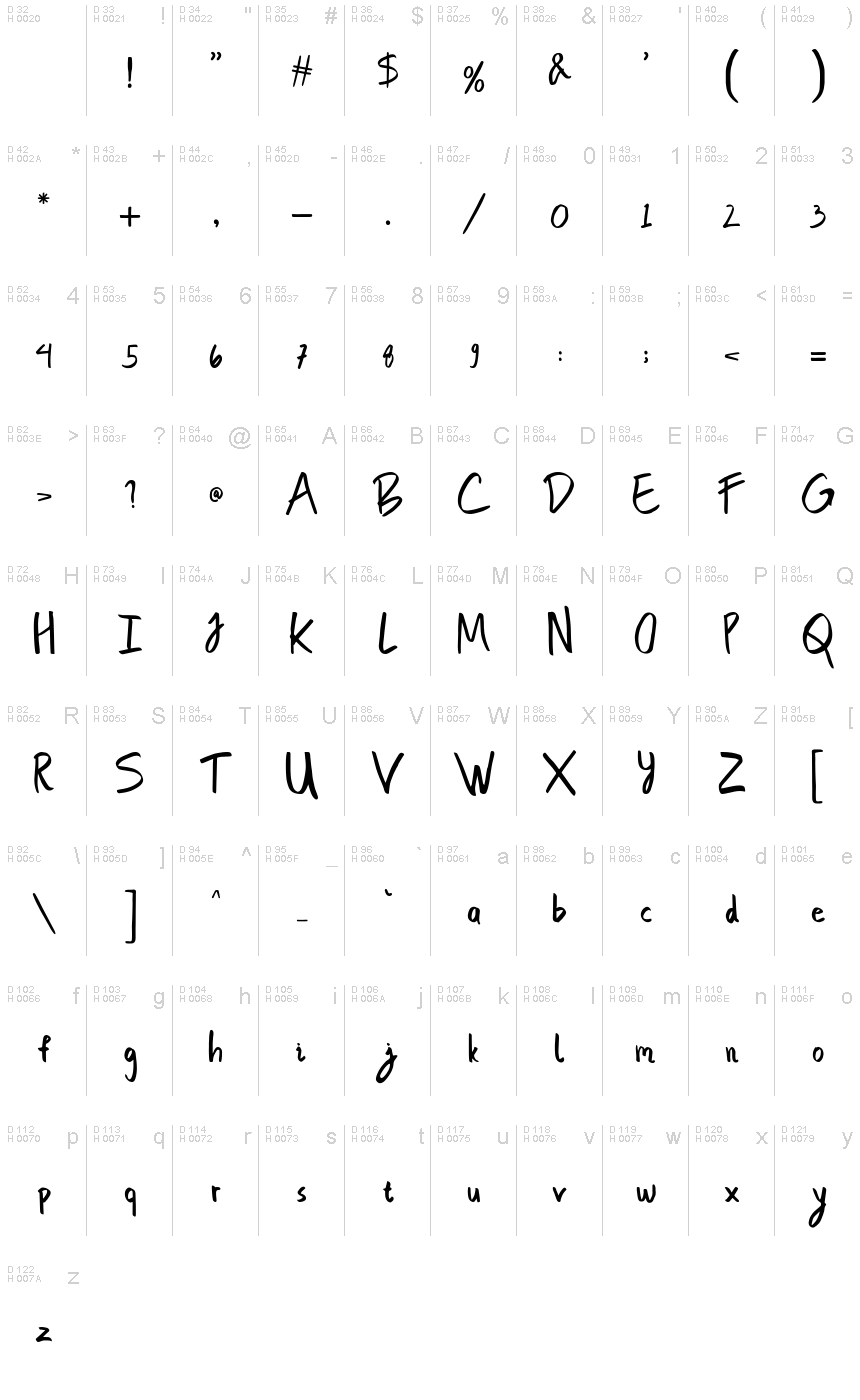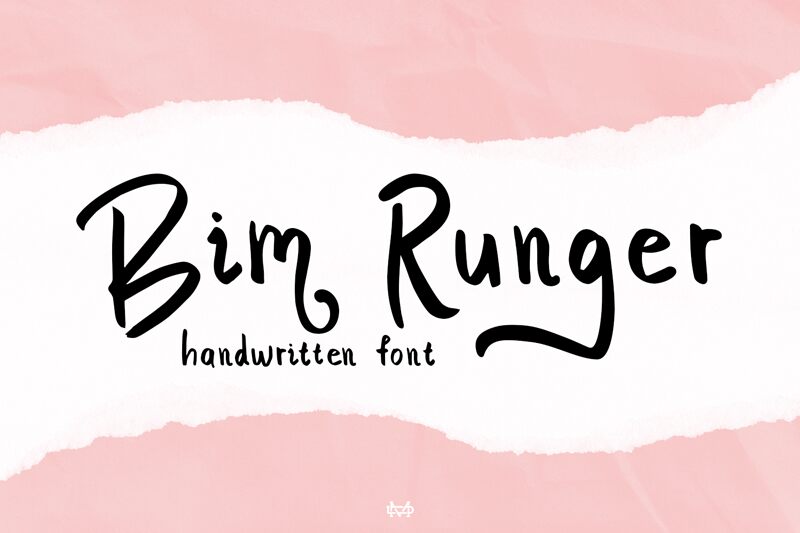
Bim Runger Demo Regular
Bim Runger font madeDeduk is an expressive and modern free handwritten font with a casual style that resembles well-structured handwriting. Some of its defining characteristics are the brushed texture, rounded corners, and relaxed overall aspect which is responsible for adding a genuine personal touch to any design. The letters look as if they’ve been sketched with a pencil manually by hand instead of having been professionally designed with vector software from scratch.
Show off Bim Runger’s best features in handwritten-style logos, advertising posters, product packaging designs, invitation card covers, book covers or magazine title pages. Use this modern feel font also as the main typeface for your identity branding item headlines such as those in flyers and catalogs.